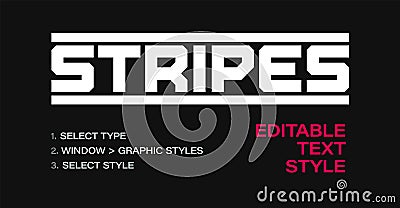
Text Effect For Font. Minimalistic Containered Strokes. Creative Typographic Solution Fro Headline And Logo. Editable Vector Illustration
Text effect for font. Minimalistic containered strokes. Creative typographic solution fro headline and logo. Editable graphic style. Vector illustration.